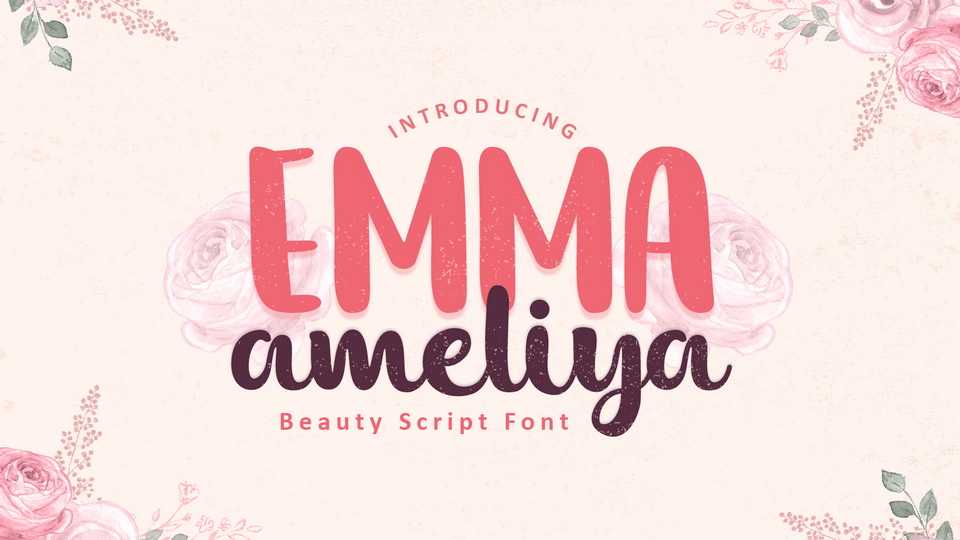
Download Emma Ameliya font, an exquisite handwritten typeface, masterfully designed to become a true favorite. Emma Ameliya maintains its classy calligraphic influences while feeling contemporary and fresh.
Designer: Dewi Purwaningrum